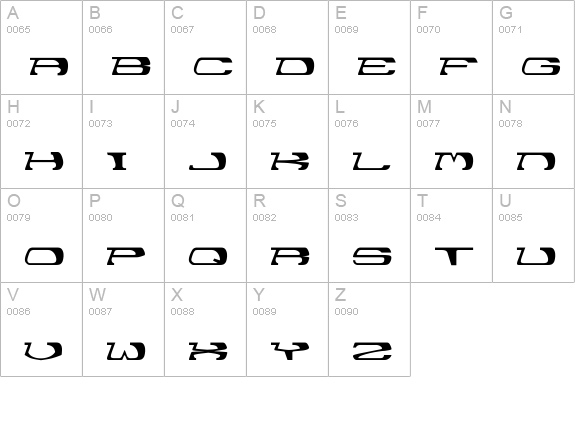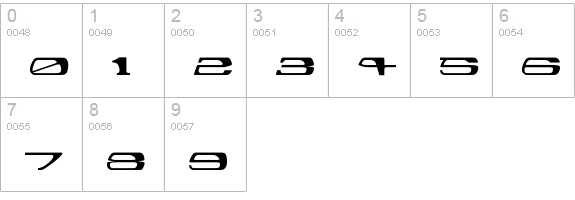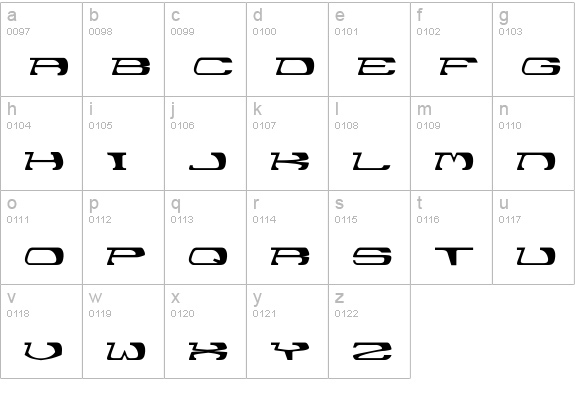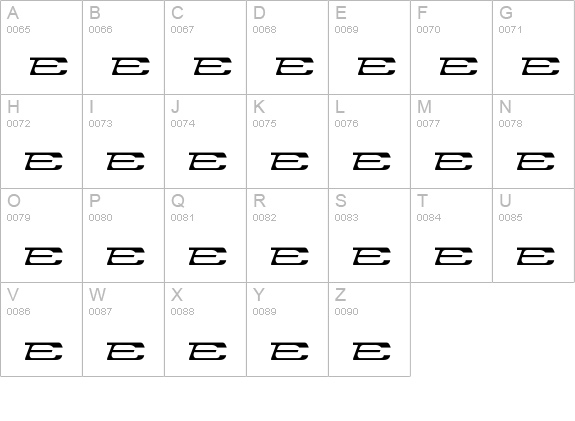
garth Font Details
Garth Font is a modern and sleek typeface that exudes sophistication and elegance. With its clean lines and stylish curves, Garth Font is perfect for a wide range of design projects, from branding to editorial layouts. This versatile font is sure to make your text stand out and leave a lasting impression. What makes Garth Font even more appealing is that it is completely free to download at FontsMarket.com. This means that you can elevate your designs without breaking the bank. Whether you're a professional designer or a hobbyist looking to add a touch of class to your projects, Garth Font is the perfect choice. Download it today and let your creativity soar!